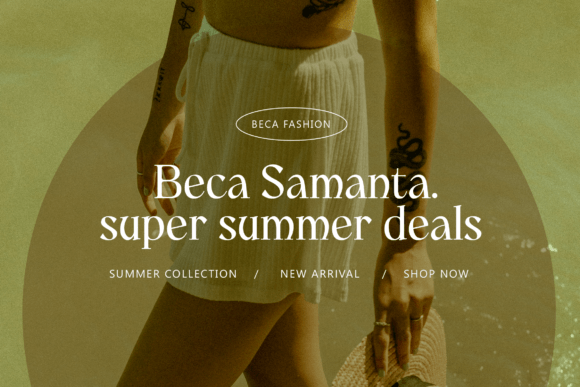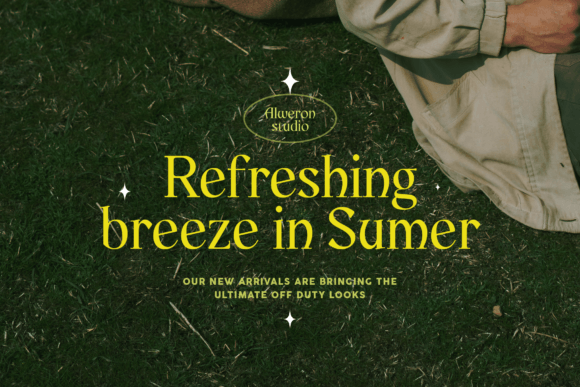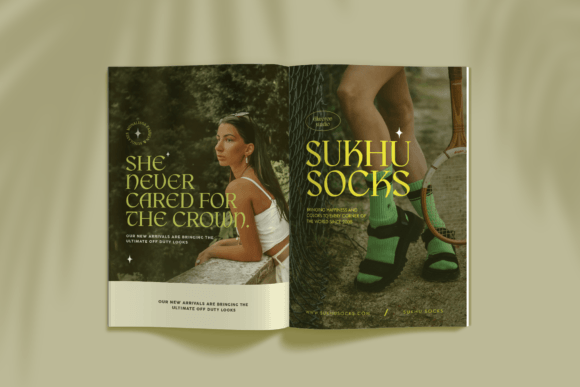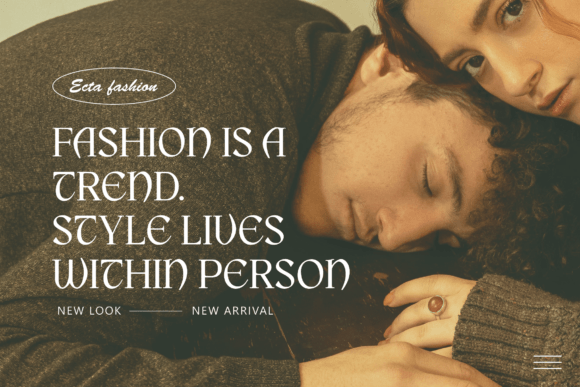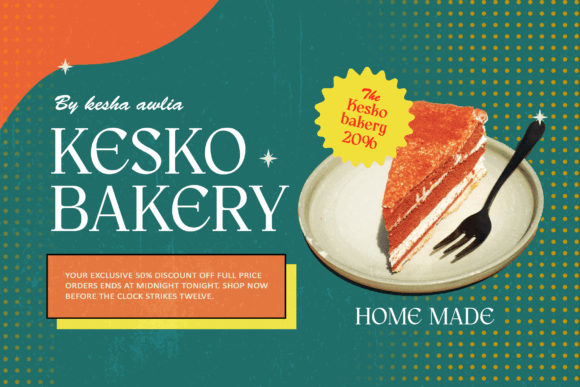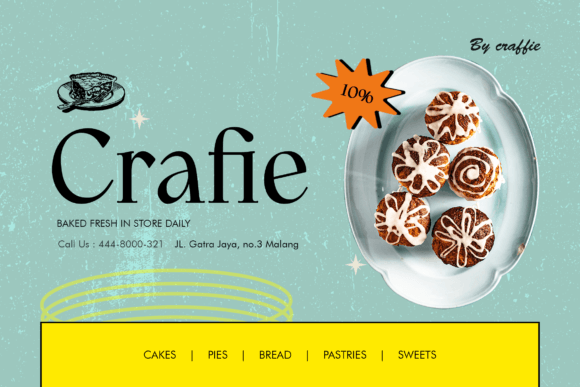
Find Your Perfect Font: The Alweron Font Revolution
Have you ever stared at a blank canvas, struggling to find the perfect font to bring your design to life? We’ve all been there. The search for the ideal font can be a daunting task, but what if I told you that the perfect balance of classic and modern is just a click away?
Introducing Alweron Font, a timeless serif typeface that effortlessly blends vintage charm with a modern twist. This elegant font is designed to elevate your designs, making it perfect for branding, logos, packaging, headlines, and editorial designs. With its unique features like ligatures and alternate characters, Alweron Font offers unparalleled versatility, allowing you to take your designs to the next level.
Whether you’re a seasoned designer or just starting out, Alweron Font is an invaluable addition to your toolkit. Its sophisticated style and modern flair make it a valuable asset for any design project, ensuring that your work stands out from the crowd.
Alweron Font Key Features
- Unique Characteristics: The font features a unique blend of modern and traditional elements, resulting in a distinctive and eye-catching design.
- Style Options: The font comes in multiple styles, including Regular, Bold, Italic, and Bold Italic, allowing users to choose the perfect look for their project.
Alweron Font Review
Overall, I think Alweron Font is a solid choice for any designer looking to add some unique flair to their project. Here’s what I like about it:
- ✨ Beautiful hand-drawn feel: Alweron Font has a beautiful, hand-drawn aesthetic that immediately grabs attention.
- ✨ Highly customizable: This font offers a range of styles and weights, making it easy to find the perfect fit for your design.
That being said, there are a few limitations to keep in mind:
- ⚠️ Limited language support: While Alweron Font is great for English and other Latin-based languages, it may not be the best choice for languages that use non-Latin scripts.
- ⚠️ May not be suitable for body text: Due to its unique, hand-drawn style, Alweron Font may be more suited to headings or titles rather than large blocks of body text.
Overall, I think Alweron Font is a great choice for designers who want to add some personality to their work. While it may have some limitations, its unique style and high level of customization make it well worth considering.
Tip: Use Alweron font for headings to add a touch of elegance to your design.
Tip: Use Alweron font for titles and headings to create a consistent design aesthetic.
Tip: Use Alweron font for headings and titles to create a professional look.
Alweron font is suitable for:
- Business cards and brochures.
- Editorial and publishing design.
- Photography and art portfolios.
Remember to use Alweron font in moderation to avoid overwhelming your design.